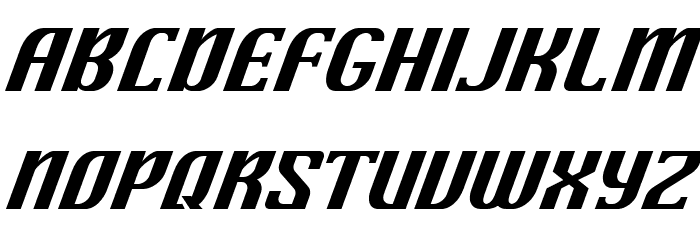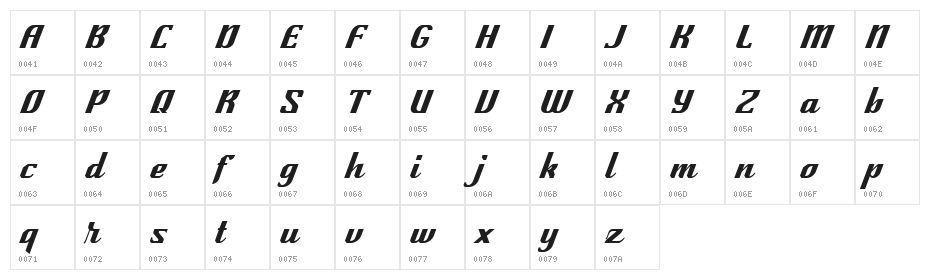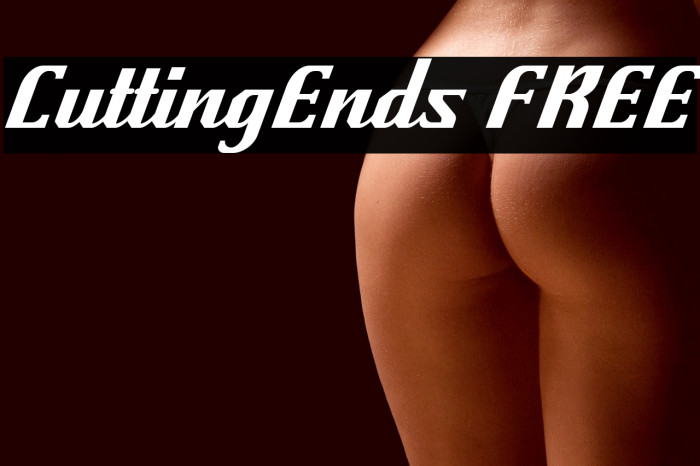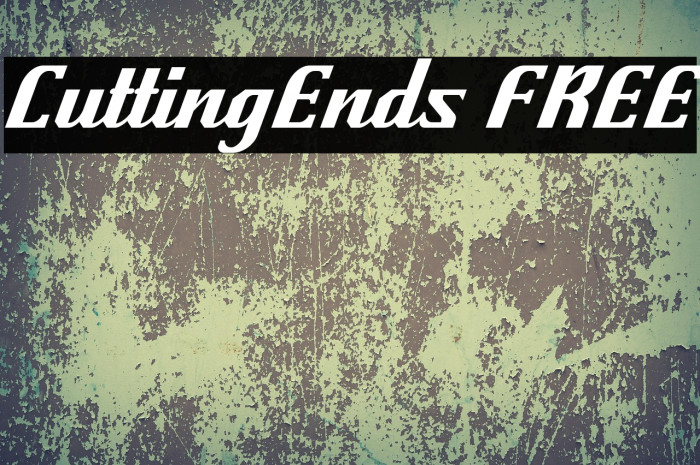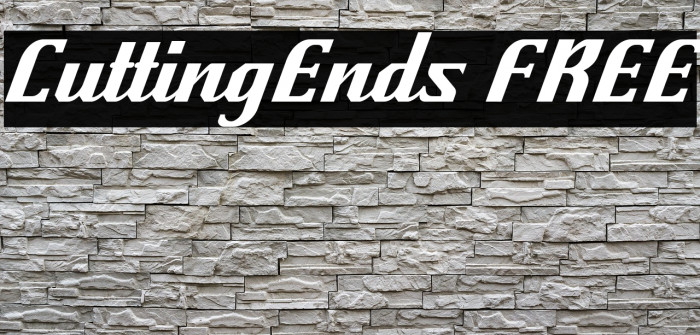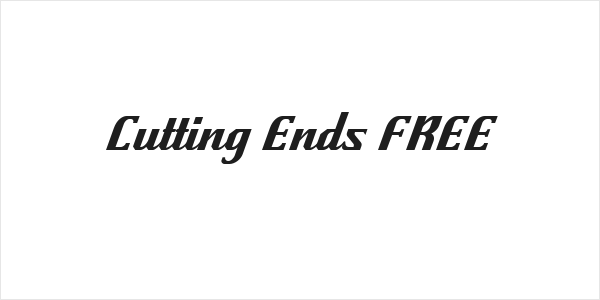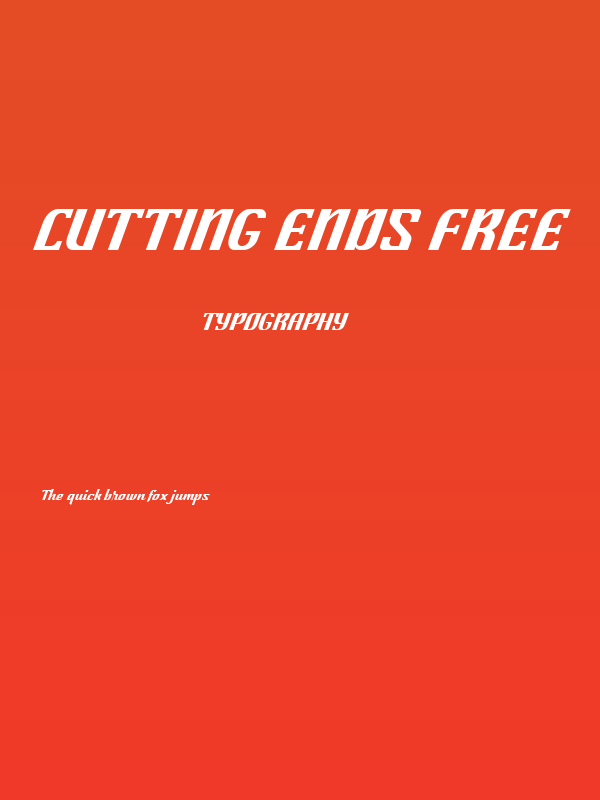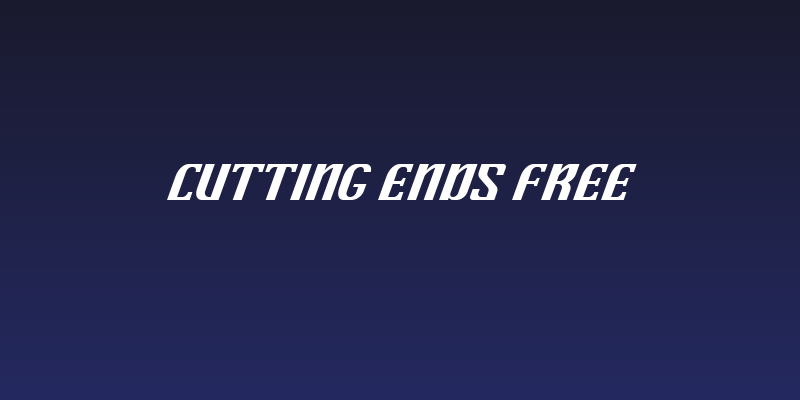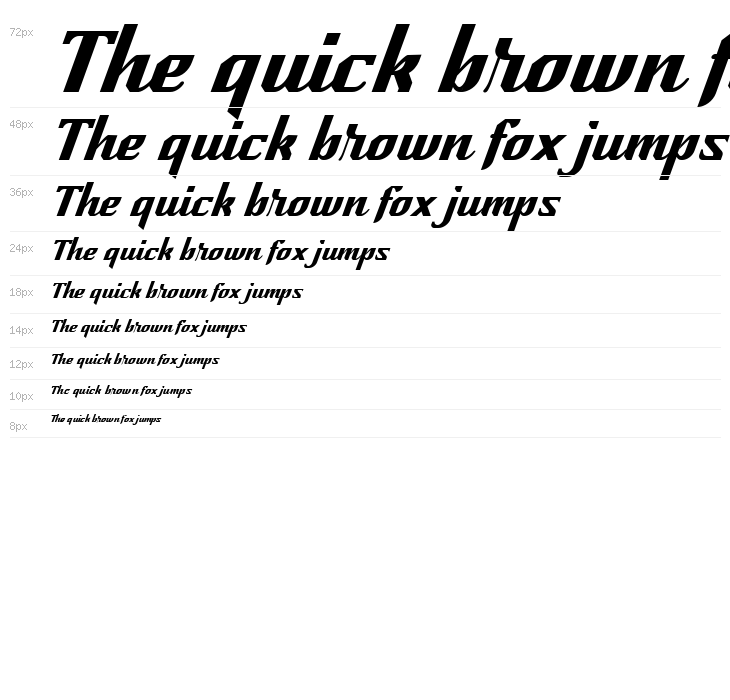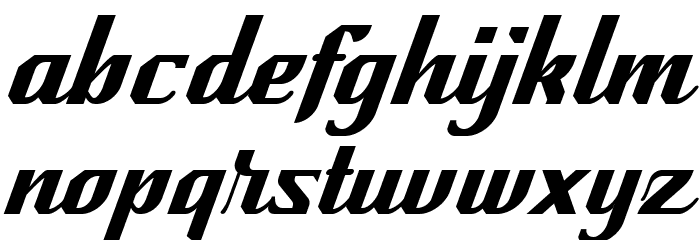
Cutting-Ends FREE Font
Cutting-Ends FREE Description
This font features a bold and dynamic script style with sharp, angular edges that give it a modern and edgy appearance. The characters are slightly slanted, adding a sense of motion and energy. The uppercase and lowercase letters maintain a consistent style, with distinct cut-off ends that enhance its unique look. The numbers and special characters follow the same design principles, ensuring uniformity across all glyphs. This font is ideal for projects that require a strong visual impact, such as branding, headlines, and posters.
| Proposed Projects | Ideal for branding, headlines, posters, and any project needing a bold visual impact. |